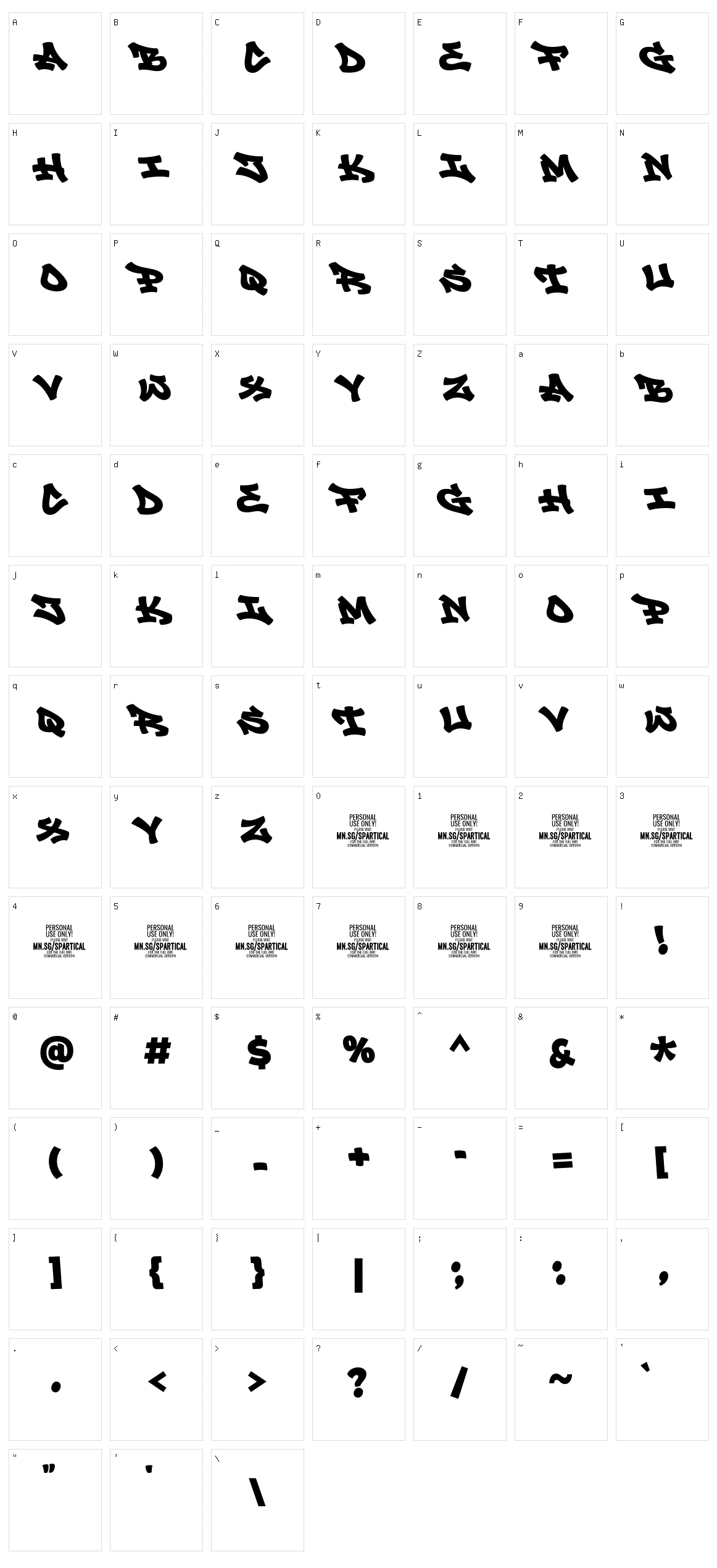
Spartical Graffiti is a heavy overlapping graffiti font.
This street art font captures the raw energy and vibrant spirit of hip hop culture, embodying its rebellious essence and bringing it to life through dynamic lettering and heavy, impactful strokes.
Activate contextual ligatures to make the letters overlap!
The bold and lively presence of each character in this font mimics the authenticity of graffiti pieces found on city walls, making it perfect for projects that aim to capture the genuine look of street art. It is created with love for youthful freedom and creative vibrancy.
The font is built with advanced OpenType functionality and guaranteed top-notch quality, containing stylistic and contextual alternates, ligatures and more automatic and manual features; all to give you full control and customizability.
Designed by Mans Greback, Spartical Graffiti stands as a tribute to the art form that has shaped urban visual culture. Through this font, Greback channels the essence of graffiti into a versatile typographic tool, offering designers a slice of the street art world's unparalleled vibrancy and style.